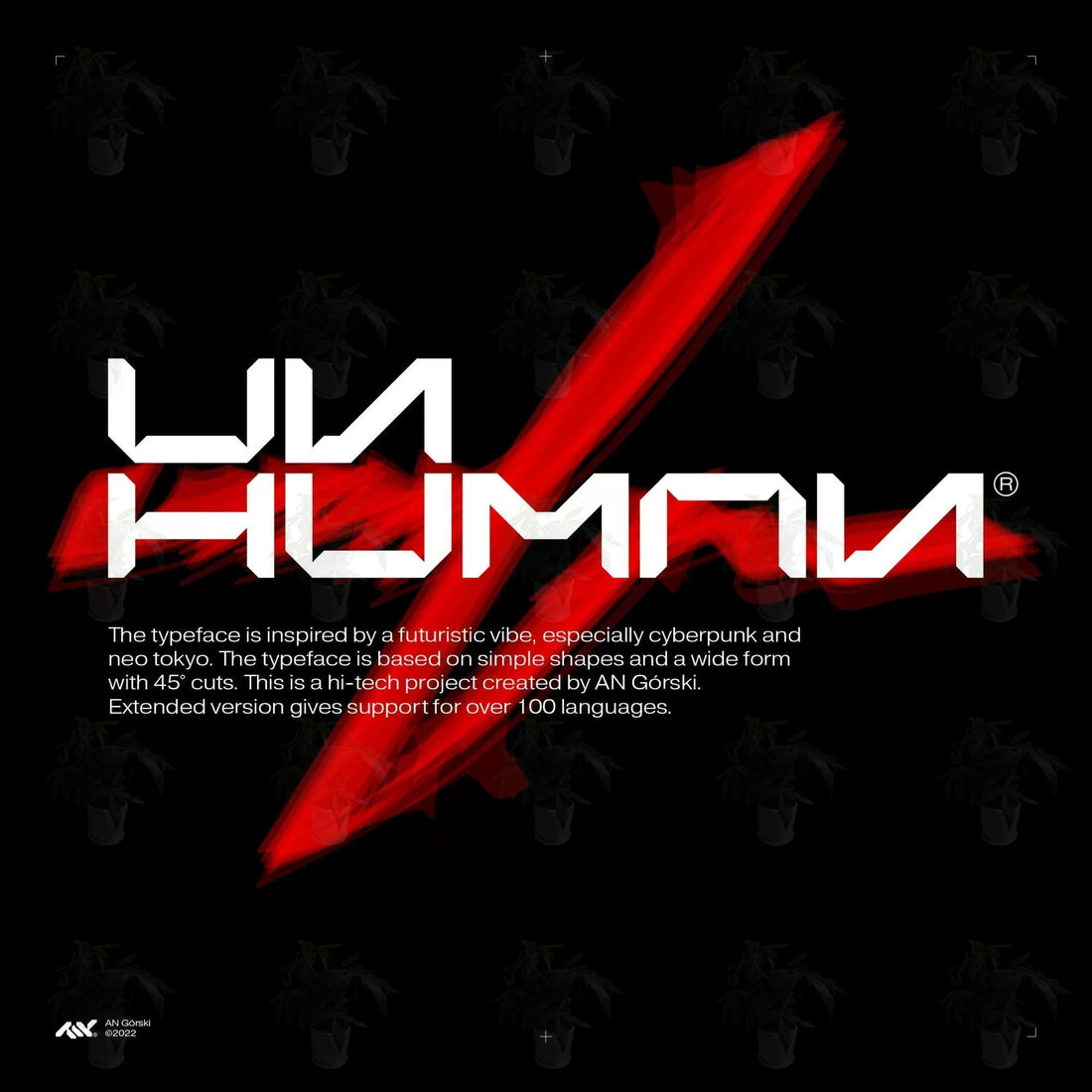
Y2K Revival: How Glitch & Pixel Fonts Can Transform Your Brand
The early 2000s are back—and they’re louder than ever. From TikTok’s retro filters to gaming merch dripping with nostalgia, the Y2K aesthetic is dominating 2024. But how can you tap into this trend? Enter Glitch & Pixel Fonts, the digital rebellion that’s perfect for brands craving a mix of retro charm and futuristic edge. In this post, we’ll show you why these fonts are a must-have and how to use them—plus grab freebies to start designing today.
Why Y2K Fonts? 3 Unbeatable Advantages
-
Nostalgia Meets Innovation
Pixel fonts and glitch effects instantly evoke the raw, DIY energy of early internet culture—think Tamagotchi interfaces and retro video games. Yet paired with modern design tools, they feel fresh and relevant. -
Stand Out in a Sea of Minimalism
While sleek sans-serifs flood the market, Y2K fonts break the rules with intentional “imperfections.” Distorted letters and pixel grids grab attention on social feeds, packaging, and event posters. -
Versatility Across Industries
Gaming, fashion, tech startups—these fonts adapt to any brand wanting to appeal to Gen Z and millennials.Ways to Use Glitch & Pixel Fonts (With Case Studies)
1. Social Media Posts That Stop Scrollers
Case Study: @RetroWaveApparel boosted Instagram Story engagement by 40% using pixel fonts for limited-edition drops.
Pro Tip:-
Use high-contrast colors (neon pink + black backgrounds).
-
Add subtle glitch animations (try Canva or After Effects).
2. Edgy Product Packaging
Case Study: Indie beauty brand “GlowPunk” sold out a holographic lipstick line in 3 hours using glitch fonts on packaging.
Design Hack: Pair with iridescent foil or holographic stickers for extra texture.
3. Retro Gaming & Esports Branding
Case Study: Esports team “Neon Raiders” redesigned merch with pixel fonts, earning praise for “perfect ’90s arcade vibes.”
4. Music Posters & Album Art
Case Study: DJ duo “Digital Static” went viral on Reddit with glitch-font posters, doubling ticket sales.
Pro Tip: Use Photoshop’s Wave Warp tool for custom distortion effects.